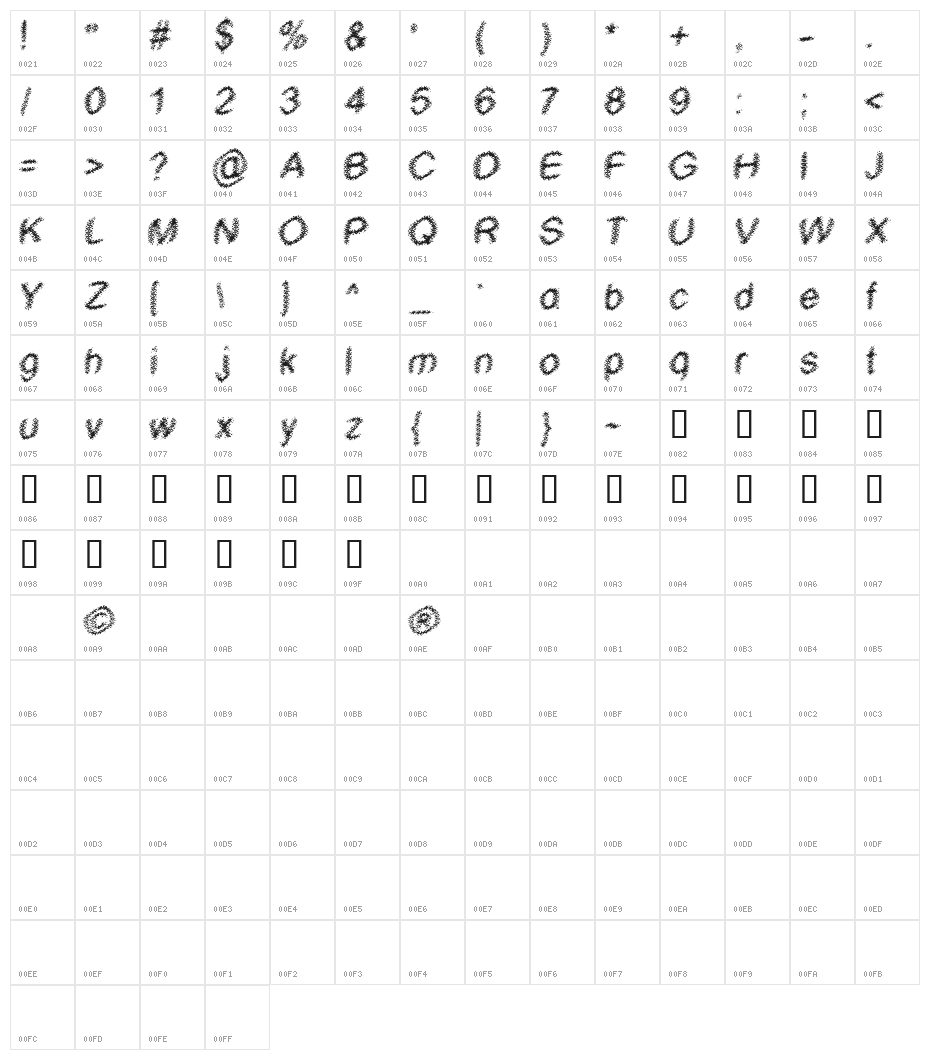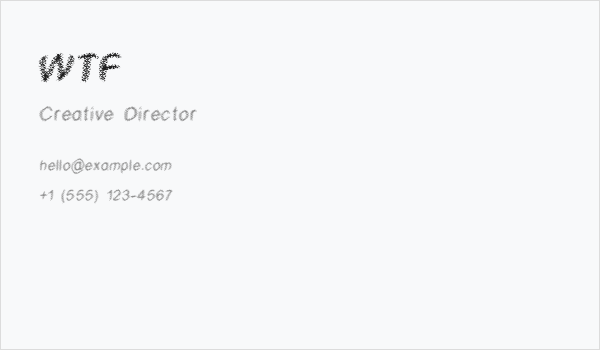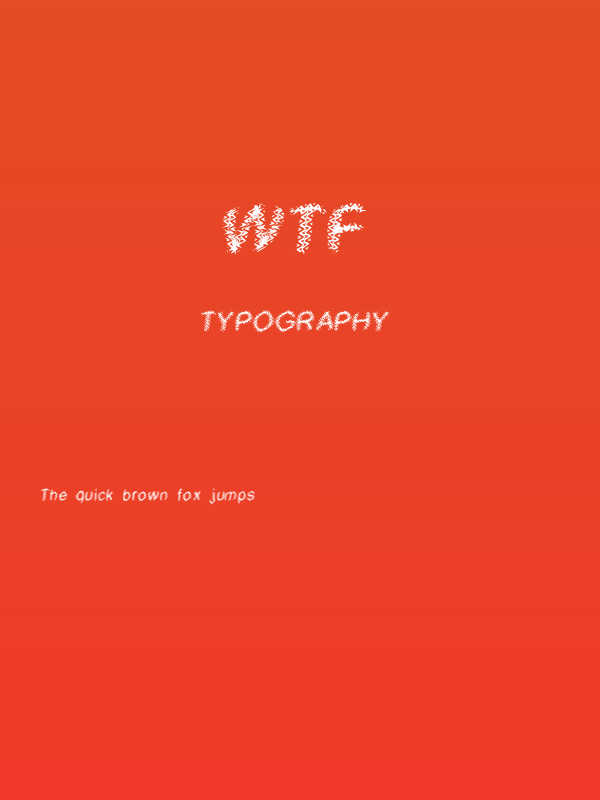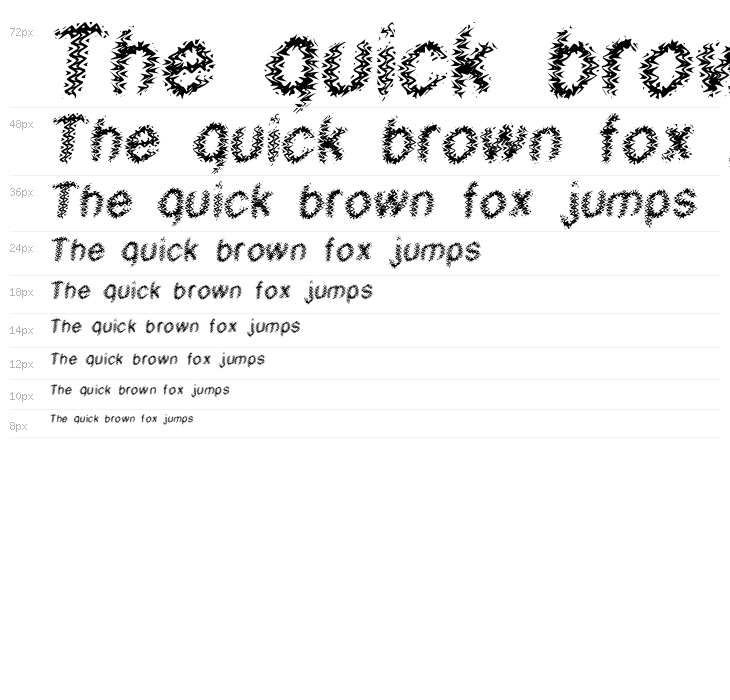
WTF Font
This font exhibits a highly dynamic and energetic style, characterized by its jagged, zigzag patterns that create a sense of movement and chaos. The letters are bold and heavily textured, giving them a striking appearance that stands out dramatically on any page. The uppercase and lowercase letters maintain a consistent design, with each character appearing as if it is vibrating or in motion. Numbers and special characters follow the same design principles, ensuring uniformity across the font set. This font is ideal for projects that require a bold statement or a sense of urgency and excitement.
Overall StyleModern, Energetic
Use CaseHeadlines, Posters, Branding
Proposed ProjectsIdeal for music album covers, event posters, edgy branding, or any project needing a bold, attention-grabbing typeface.